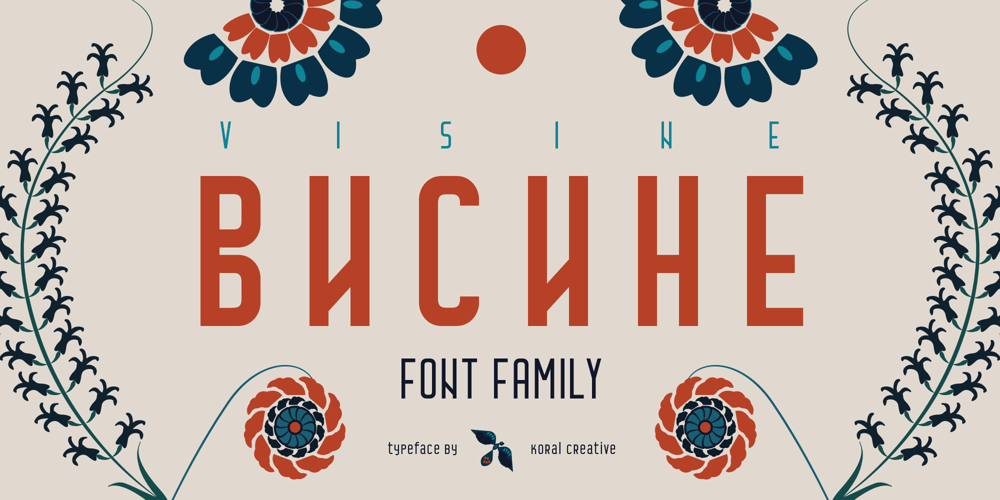
Visine FF Font Family was designed by Milos Kozlovacki and published by Koral Creative. Visine FF contains 4 styles and family package options. Visine FF is a typeface that aims to question the geographical borders that in so many ways can define people’s lives. It was developed with the experience of advertising and commercial use in mind. The name Visine can be translated most simply as HEIGHTS. Visine FF was developed out of the necessity to make the most of the space on the visual format. With the tall arches and narrow bodies with exceptional, easy-to-read features, Visine FF aims to complement visual languages in many linguistic regions.Visine FF was developed in the Balkans, where Cyrillic, Latin and Glagolitic were the three historical writing systems used in the former Yugoslavia to denote cultural, ethnic, religious and political identities. Today, the languages of the Western Balkans are so similar that they can easily be called dialects, although they are written in different scripts. This is the result of their coexistence and parallel evolutions, which gave a rise to the common traits.This font family celebrates all the languages and scripts of the Western Balkans and is a labour of love. Love of design, love of language and the human need to communicate across borders, cultures and identities.